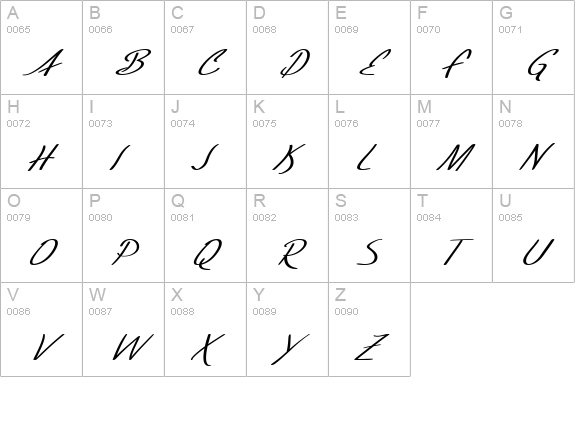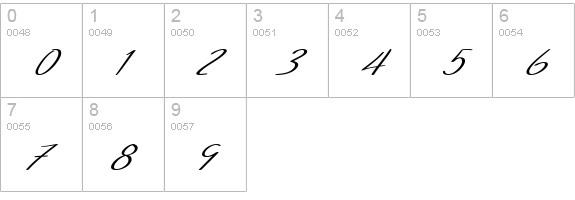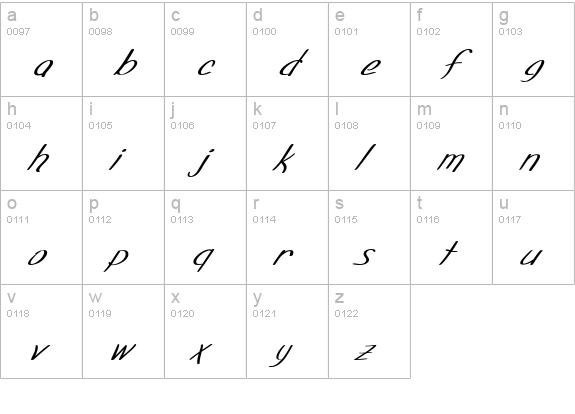
SF Foxboro Script Extended Italic Font Details
SF Foxboro Script Extended Italic is a distinctive, extended-width, italic variant in the SF typeface family \xE2\x80\x94 well suited to design and typography projects.
SF Foxboro Script Extended Italic is a beautifully crafted and highly versatile font that effortlessly combines elegance with a touch of playfulness. Its flowing, swooping curves give it a sense of movement and grace, making it the perfect choice for any design project that requires a touch of sophistication. This font is an extended italic version of the popular SF Foxboro Script font, adding an extra layer of style and uniqueness to your designs. Its extended letterforms provide a more pronounced slant, creating a captivating visual effect that is both eye-catching and modern. SF Foxboro Script Extended Italic is ideal for a wide range of design applications, including logos, branding, invitations, headlines, and more. Its versatility allows it to be used in both formal and informal contexts, making it suitable for everything from elegant wedding invitations to playful social media graphics. One of the most exciting aspects of SF Foxboro Script Extended Italic is that it is available for free download at FontsMarket.com. This means that you can enjoy the beauty and versatility of this font without any cost, making it a fantastic addition to your font collection. Whether you are a professional designer or a hobbyist, having access to high-quality fonts like SF Foxboro Script Extended Italic can greatly enhance your creative projects. With its unique and captivating design, SF Foxboro Script Extended Italic is sure to make a lasting impression on your audience. Its effortlessly elegant style and wide range of applications make it a must-have font for any designer. Experience the beauty and versatility of SF Foxboro Script Extended Italic by downloading it for free at FontsMarket.com today.